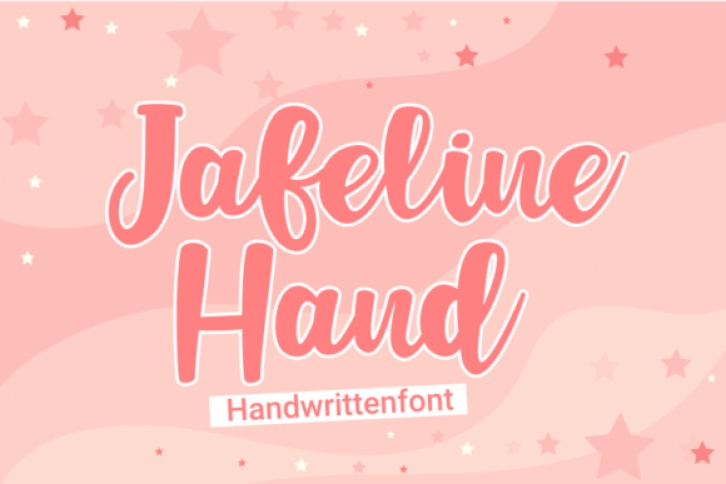
Jafeline Hand feels equally charming and modern. This stunning handwritten font is a stylish homage to classic calligraphy. Jafeline Hand is the ideal font for making original and outstanding designs.